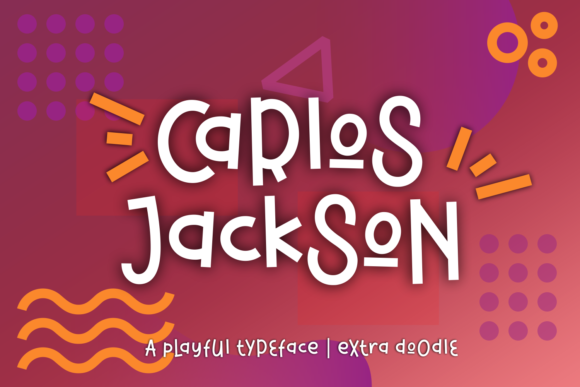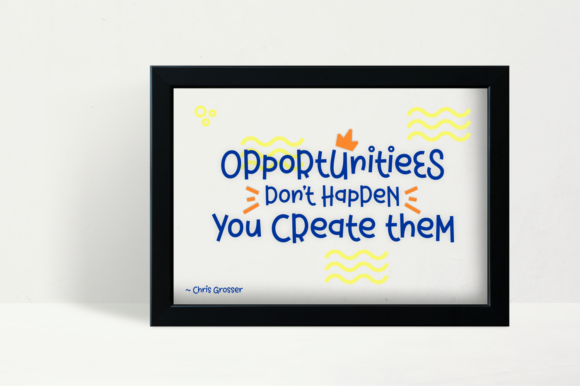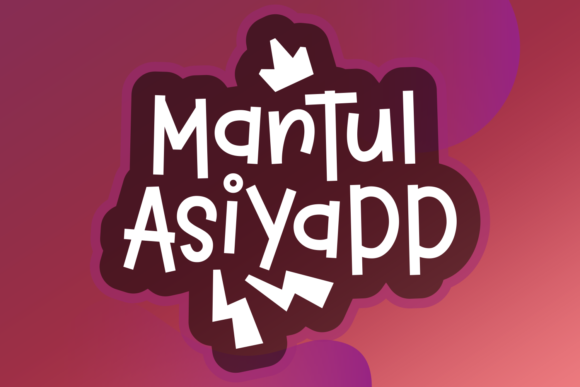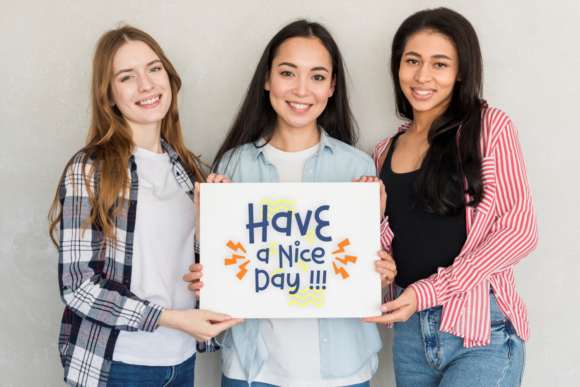
Carlos Jackson Font
About Carlos Jackson Font
Carlos Jackson is a kooky and quirky handwritten font with a lot of authenticity! Get inspired by its personal charm.